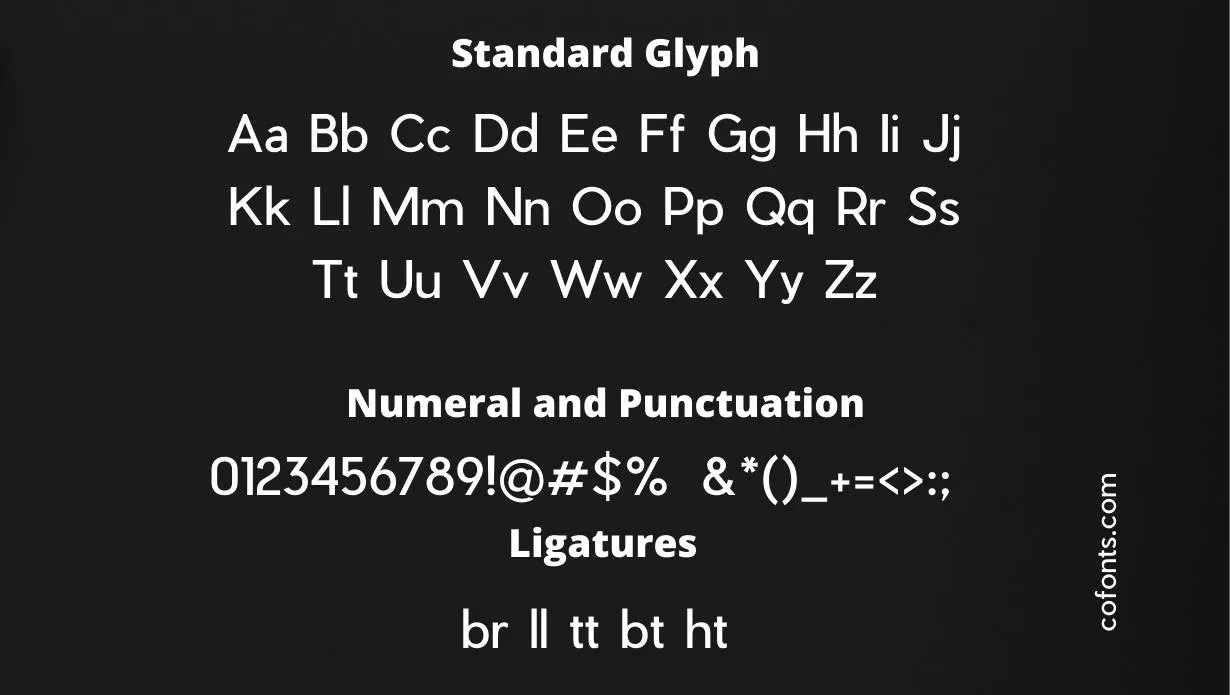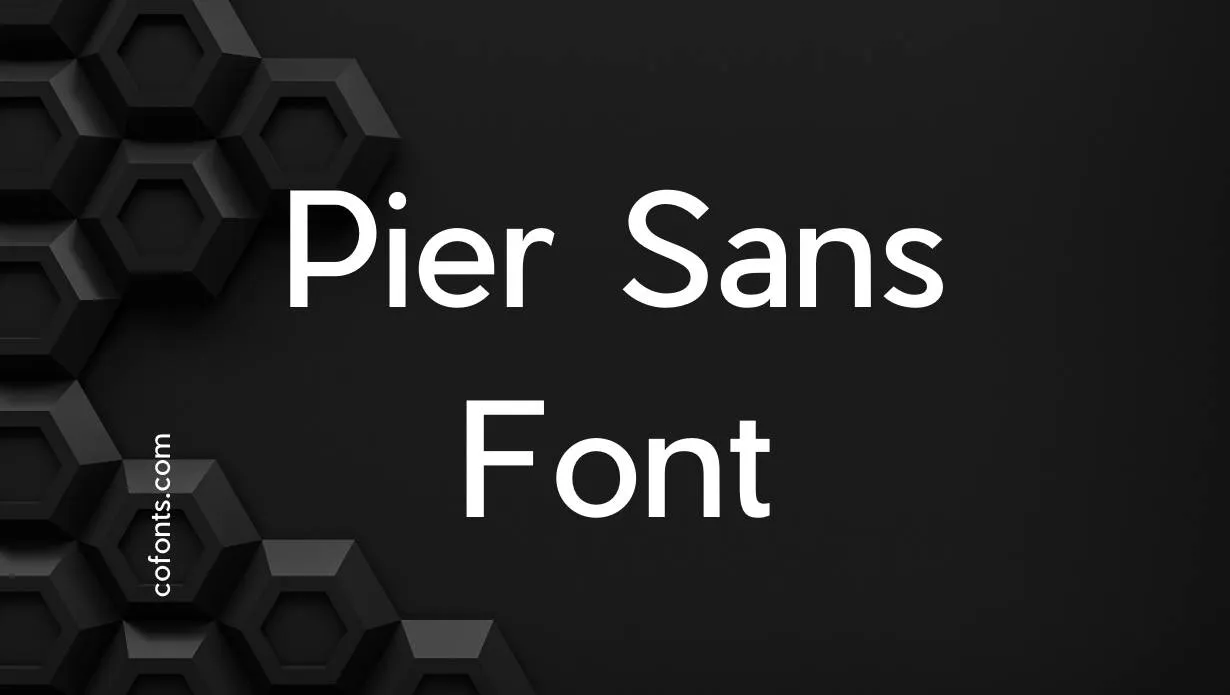
About Pier Sans Font Free Download
Pier Sans Font Free Download is a modern typeface available in multiple variants and styles.
- Pier Sans Font Regular
- Pier Sans Font Bold
- Pier Sans Font Italic